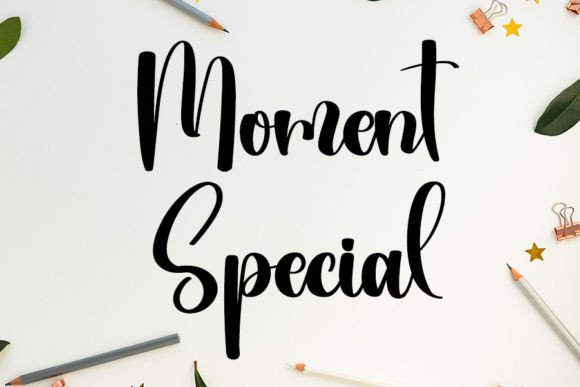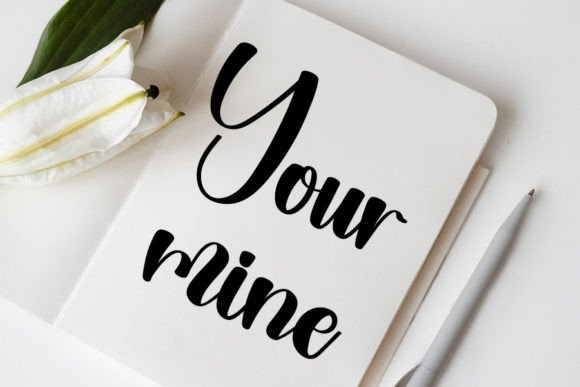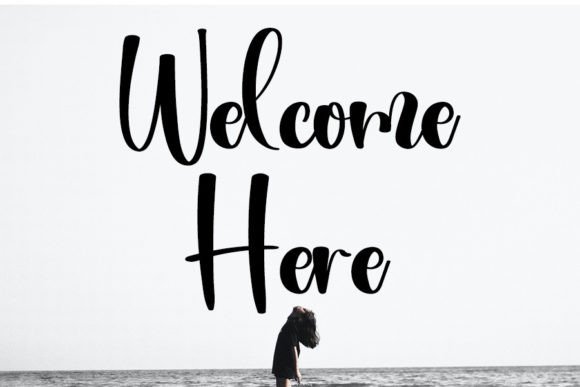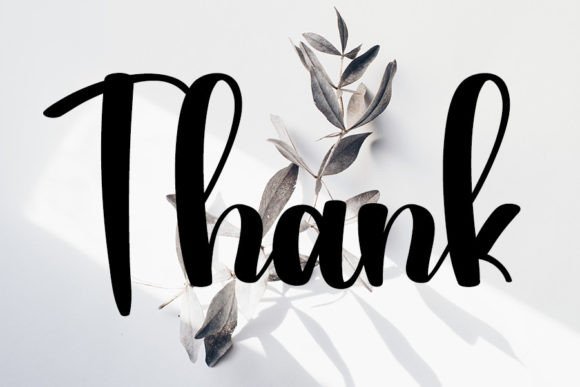
Handwriting Font
A Neat and Elegant Handwritten Font
Handwriting Font is a neat and beautiful handwritten typeface that exudes elegance with every stroke. Perfect for a wide range of design projects, this font combines a distinctive, timeless style with an elegant touch, making it the ideal choice for both personal and professional creative work. Whether you’re designing wedding invitations, logos, or social media content, the Handwriting Font adds a unique personalized touch that elevates any project.
Perfect for Wedding Invitations and Special Events
For wedding invitations and special event stationery, the Handwriting Font is a great choice. Whether you’re designing save-the-dates, thank-you cards, or RSVP cards, this font brings a romantic, timeless appeal to your designs. Its neat, elegant strokes ensure that your invitations feel both personalized and sophisticated, setting the tone for your special occasion. The Handwriting Font ensures that your event materials leave a lasting impression with their graceful and charming appeal.
Ideal for Logos and Branding Projects
For logos and branding, the Handwriting Font offers a beautifully handwritten style that gives your business identity a distinctive, personalized touch. Whether you’re designing a luxury brand logo, a personal brand, or marketing materials, this font helps you convey a sense of elegance and creativity. Its timeless style and neat strokes ensure your logo stands out while maintaining a professional and approachable appearance. The Handwriting Font is perfect for businesses that want to create a memorable, artistic identity.
Great for Greeting Cards and Invitations
The Handwriting Font is also perfect for greeting cards and invitation designs. Whether you’re designing birthday cards, holiday greetings, or party invitations, this font brings a charming and elegant touch to your messages. Its neat and artistic style ensures that your designs feel personalized and welcoming, perfect for both formal and casual events. Use it for creating invitations that are not only functional but also beautifully designed to capture attention and set the tone for your event.
Ideal for Social Media and Digital Content
For social media and digital content, the Handwriting Font adds a personalized and timeless touch to your posts. Whether you’re creating Instagram graphics, Facebook posts, or Pinterest pins, this font brings a clean, elegant appearance to your content. Perfect for motivational quotes, promotional material, or event announcements, the Handwriting Font ensures that your designs remain memorable, engaging, and easy to read. This font helps create eye-catching content that resonates with your audience.
Great for Book Covers, Magazines, and Editorial Designs
For book covers, magazines, and editorial designs, the Handwriting Font brings a sophisticated and classic feel. Whether you’re designing book titles, magazine headlines, or article content, this font ensures that your text is both elegant and visually appealing. Its neat strokes and well-spaced characters make it easy to read, while its beautiful handwritten style adds a touch of artistry to your editorial materials.
Versatile, Legible, and Timeless
Despite its elegant handwritten design, the Handwriting Font remains legible and easy to use. Its consistent strokes and well-spaced letters ensure that your text is clear and readable, even for longer passages or smaller sizes. Whether you’re using it for headlines, captions, or body text, this font strikes the perfect balance between creativity and readability, making it ideal for a wide range of design applications, from print to digital media.
The Handwriting Font is easy to use and integrates smoothly into most design software. Whether you’re working on logos, wedding invitations, greeting cards, or social media content, this font ensures your designs look polished and professional while maintaining a personalized touch. Its versatility makes it perfect for both print and digital media, allowing you to use it across various projects with ease.
Add Elegance and Personalization to Your Designs with Handwriting Font
If you’re looking for a neat, elegant handwritten font that adds a personalized and timeless touch to your designs, the Handwriting Font is the perfect choice. Whether you’re designing wedding invitations, logos, greeting cards, or social media posts, this font brings a beautiful handwritten style to your work. Let the Handwriting Font help you create memorable, creative designs that leave a lasting impression.